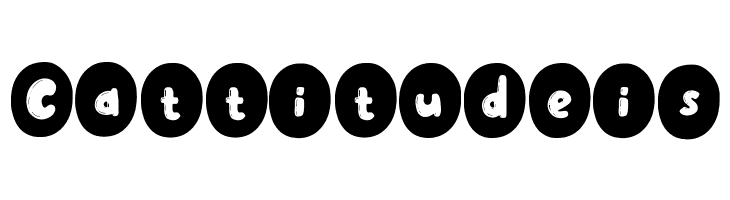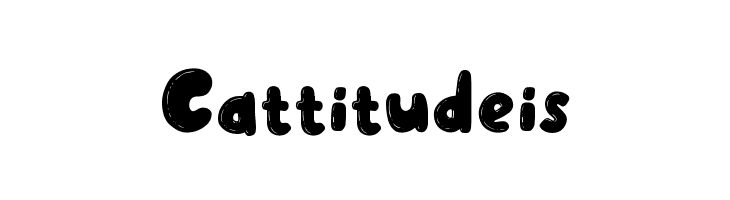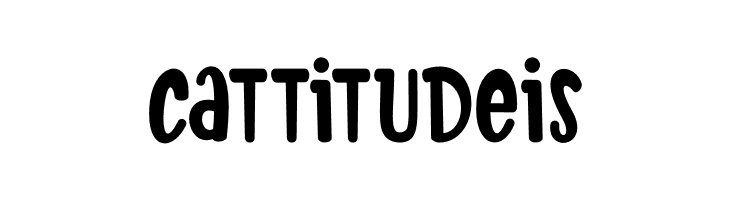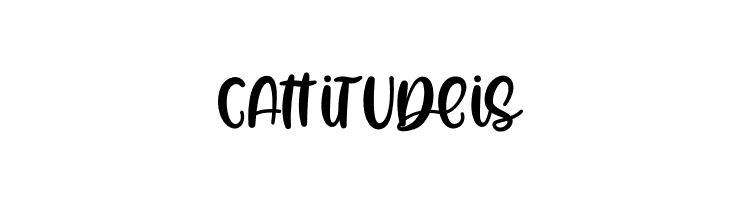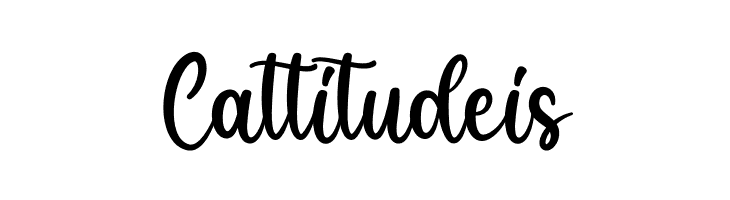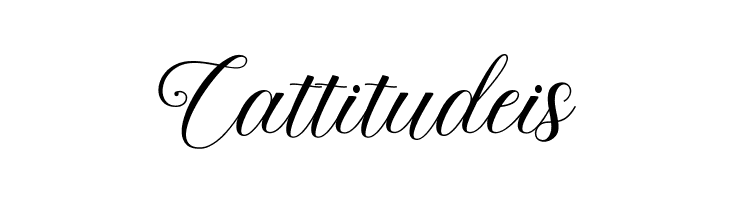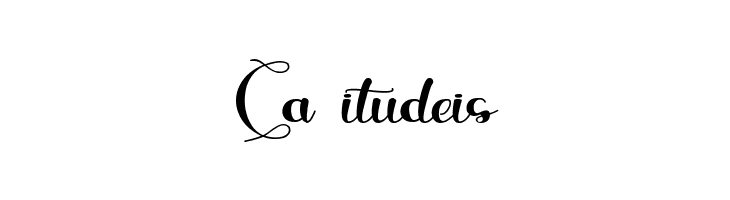
An elegant, decorative script font with intricate swirls and flowing letters.
An elegant and decorative script font with intricate swirls and flourishes.
A fluid, elegant script font with a graceful, handwritten style.
A sophisticated script font with flowing, interconnected characters and high contrast strokes.
A lively and expressive script font with fluid, dynamic strokes.
A playful, bold font with rounded edges and a whimsical touch.
A playful and elegant handwritten script font with fluid, connected letters.
A modern, flowing script font with elegant curves and dynamic style.
An elegant script font with flowing, cursive lines and graceful curves.
An elegant and sophisticated script font with flowing, interconnected letters.
An elegant script font with flowing, ornate cursive letters.
A playful and elegant script font with flowing, interconnected letters.
A playful, bold font with rounded, bubbly characters.
A playful, bold font with characters in circular shapes, ideal for fun designs.
An elegant, flowing script font with decorative uppercase and smooth lowercase letters.
A graceful and flowing script font with elegant curves and loops.
A playful, handwritten font with smooth, rounded edges and consistent stroke width.
An elegant, flowing script font with a sophisticated, handwritten style.
A modern, elegant script font with high contrast and flowing cursive style.
A sophisticated cursive font with elegant, flowing strokes and dramatic contrasts.
A playful, handwritten font with rounded edges and a casual style.
A bold, playful script font with a handwritten style.
An elegant script font with flowing, delicate strokes and ornate details.
A dynamic and elegant handwritten font with fluid strokes.
A flowing, cursive script font with elegant loops and flourishes.
A graceful and flowing script font with elegant, connected letters.
A dynamic, cursive script font with flowing, interconnected strokes.
A sophisticated and elegant handwritten script font with fluid, connected strokes.
A graceful, cursive font with elegant, flowing lines.
A flowing, elegant script font with a handwritten style.
A playful and elegant script font with flowing, cursive design and decorative elements.
A playful and elegant script font with a handwritten, cursive style.
An elegant script font with flowing, cursive strokes and high contrast.
An elegant, cursive script font with fluid, interconnected letters.
A modern, elegant script font with flowing, cursive lines.